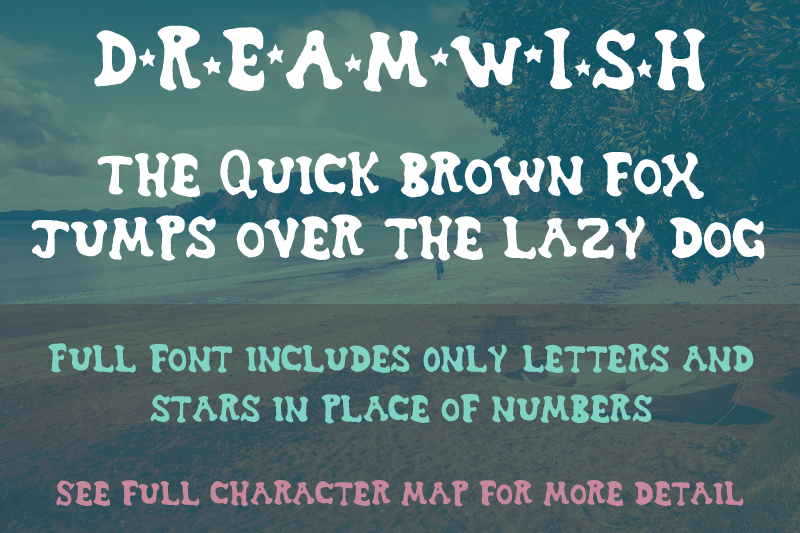
Dreamwish, originally released in late 2002, is a bubbly, jumbly, cartoonish font with a dreamy feel. The font is intended to be used in conjunction with the star characters which are in the number glyphs. The font isn’t a full character set and is therefore free of charge. Hope you like it! This is a FREE font. It contains uppercase and lowercase letters, numbers, and punctuation. You can view the full character map at QuickBrownFoxFonts.com. Whatever you use the font for, I'd love to see what you come up with! Feel free to contact me through my website and tell me about your project. |